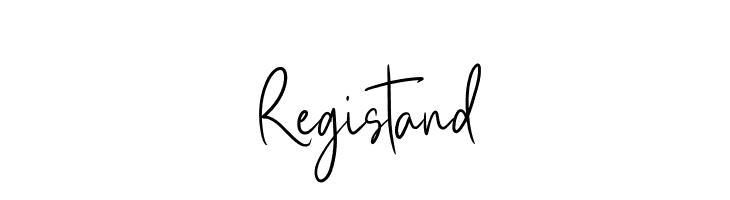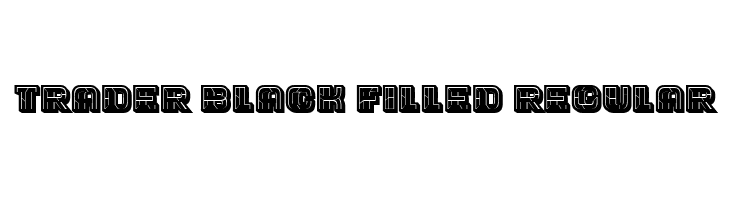
A graceful, handwritten font with a flowing, cursive style.
A bold, angular font with reflective elements and a futuristic style.
A dynamic script font with a shadow effect, offering a playful and energetic style.
A bold, modern sans-serif font with clean lines and uniform stroke width.
An elegant cursive script with flowing, ornate characters.
A bold, textured font with a vintage, distressed style.
A playful, handwritten script font with smooth, flowing curves.
A playful font with ice cream motifs integrated into bold, rounded characters.
A digital, ring-based font with a futuristic and playful design.
A bold, brush script font with dynamic, textured strokes.